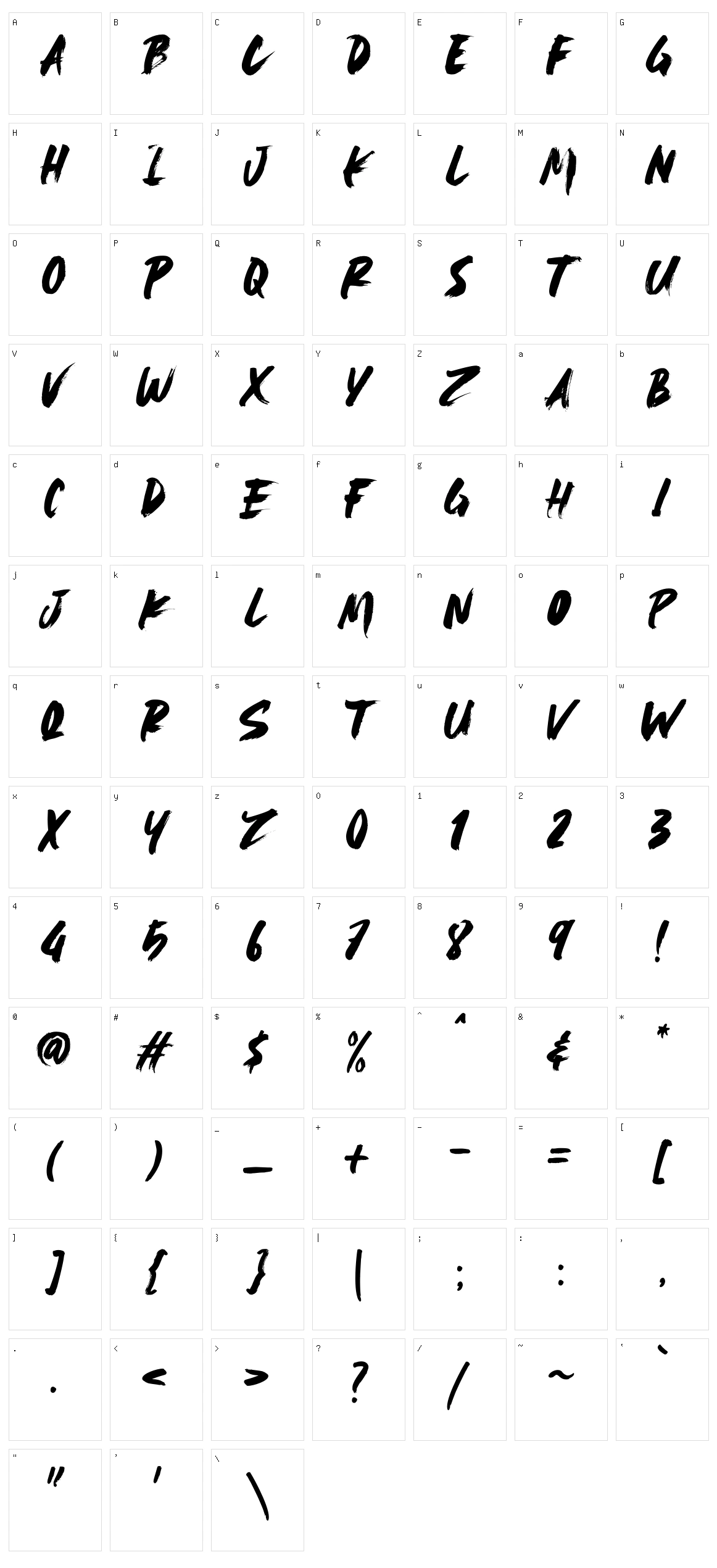
The free font Make No Sense is carefully designed by Letteratom, showcasing a thoughtful balance of creativity and usability and falls under the Script font style. When you download the ZIP file, it contains only 2330.24 KB of font files, making it lightweight and quick to download. Please review the license details below to understand permitted usage and distribution rights. If license information is not available, we recommend using this font for personal projects only or contacting the author directly for commercial usage permissions.